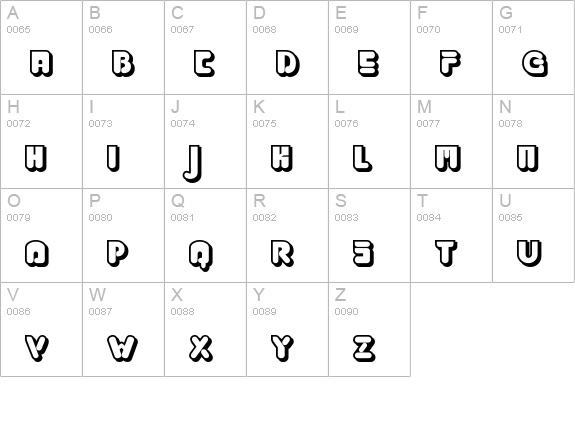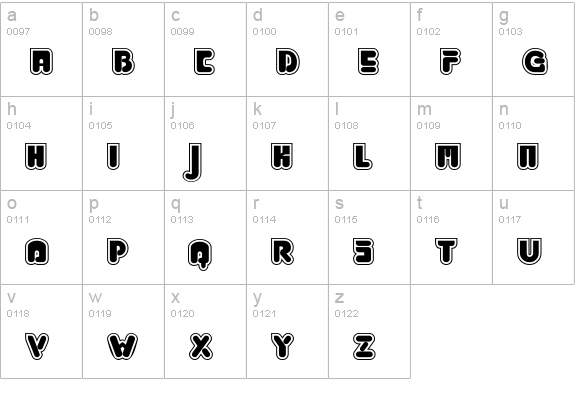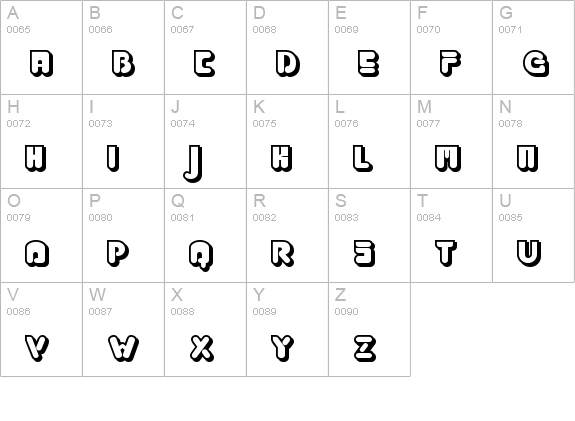
Jabbie Junior Font Details
Introducing Jabbie Junior, a stunning and charismatic font that effortlessly captures the essence of youthful playfulness and vibrant energy. Designed with the utmost care and attention to detail, Jabbie Junior is the perfect choice for all your creative endeavors, whether it be designing eye-catching logos, crafting captivating headlines, or adding a touch of whimsy to your personal projects. With its carefully crafted letterforms and delightful curves, Jabbie Junior exudes a sense of joyful exuberance that will instantly captivate any viewer. Its versatile nature allows it to seamlessly adapt to various design styles, making it an ideal companion for both professional designers and creative enthusiasts alike. But what truly sets Jabbie Junior apart is its unique feature - it's absolutely free! That's right, this remarkable font is freely available to download at FontsMarket.com, allowing you to effortlessly unleash your creativity without any financial constraints. Whether you're a seasoned designer or just starting out on your creative journey, Jabbie Junior is here to inspire and empower you to bring your ideas to life. With Jabbie Junior, the possibilities are endless. So go ahead, explore its vast potential, and let your imagination run wild. Elevate your designs, stand out from the crowd, and make a lasting impression with this remarkable font. Download Jabbie Junior now and experience the freedom of artistic expression like never before.